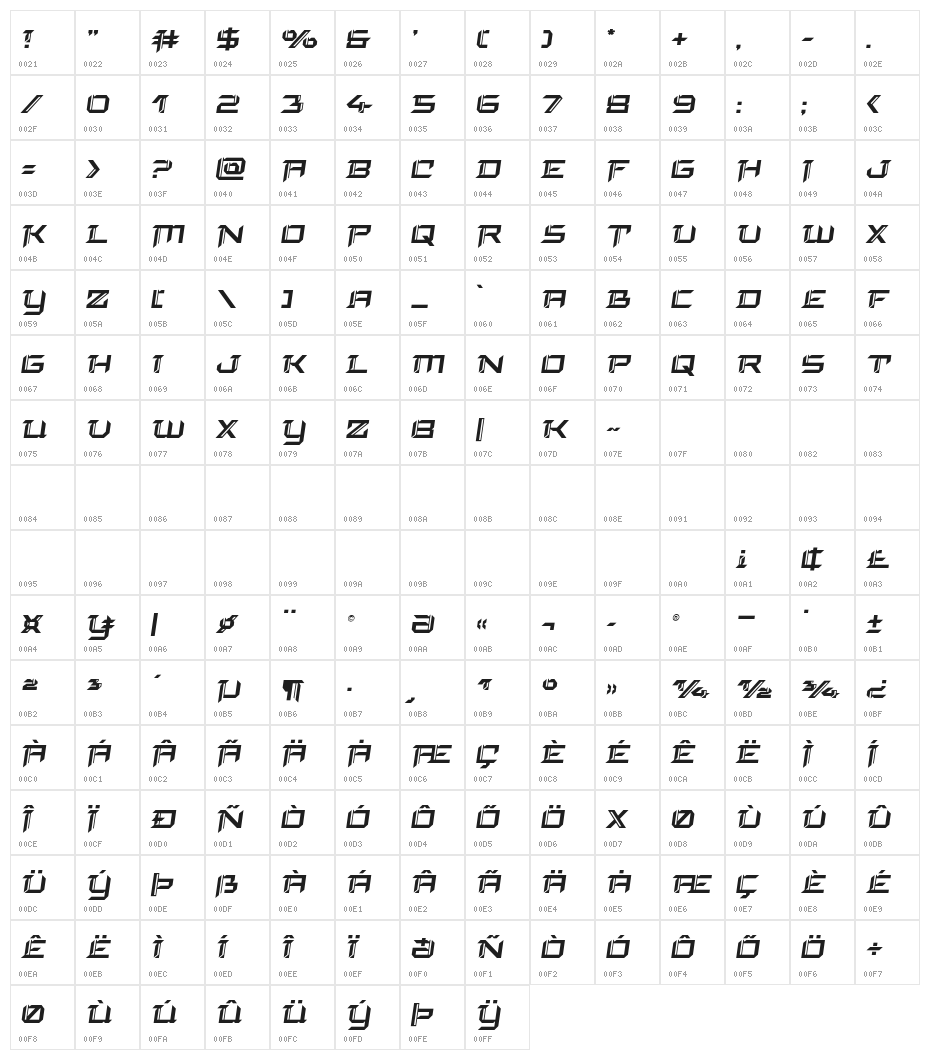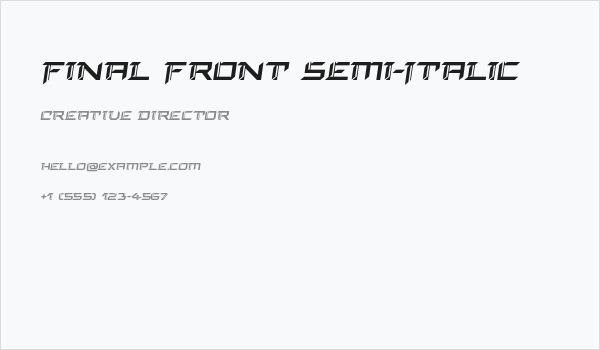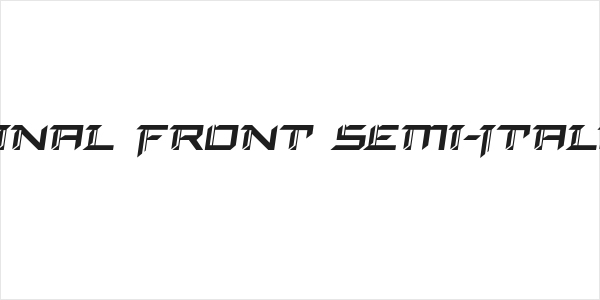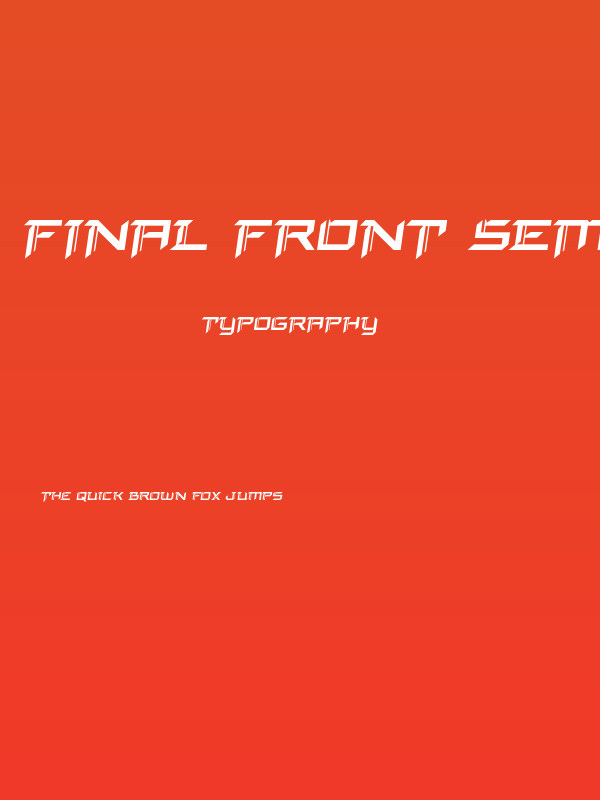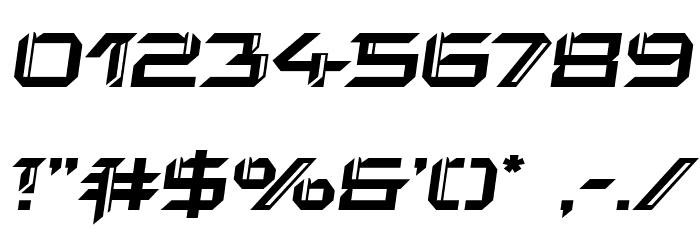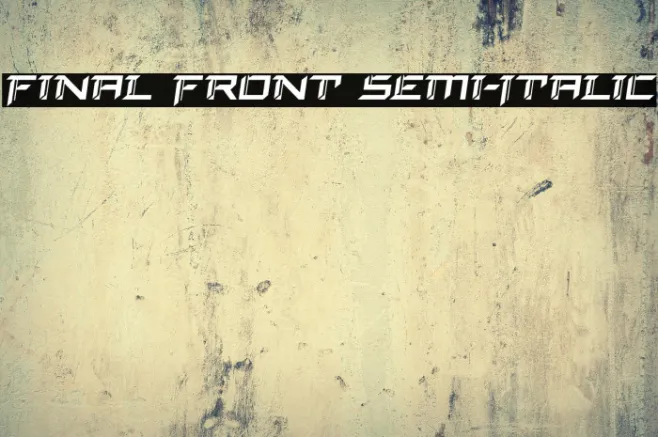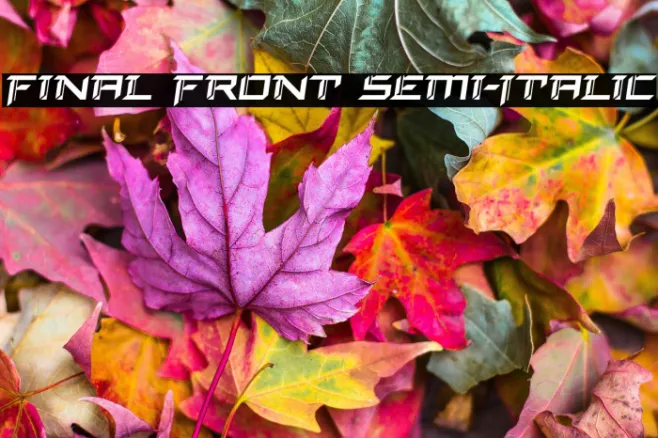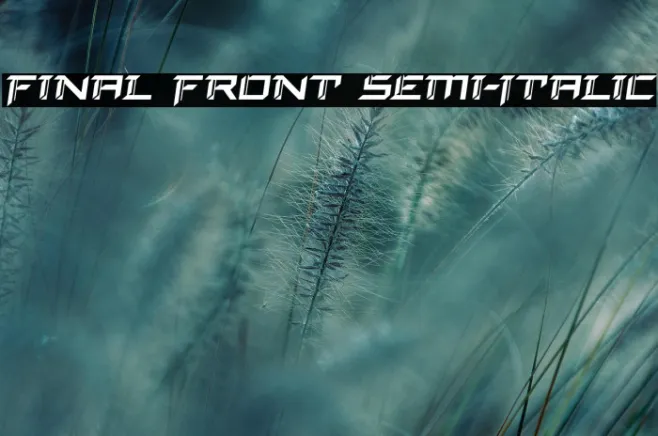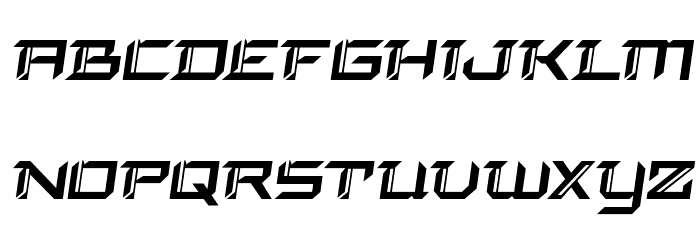
Final Front Semi-Italic Font
Final Front Semi-Italic Description
This font exhibits a futuristic and angular design, characterized by sharp edges and a dynamic slant. The uppercase and lowercase letters share a consistent geometric style, with each character featuring distinct cutouts and bold lines. The numerals and special characters maintain the same aesthetic, ensuring uniformity across all glyphs. The italicized nature of the font adds a sense of motion and speed, making it ideal for projects that require a modern and edgy look. The overall design is both striking and memorable, suitable for capturing attention in various applications.
FINAL-FRONT-SEMI-ITALIC UPPERCASE
FINAL-FRONT-SEMI-ITALIC LOWERCASE
FINAL-FRONT-SEMI-ITALIC OTHER CHARS
| Proposed Projects | Ideal for sci-fi themed designs, video game titles, tech branding, and modern posters. |